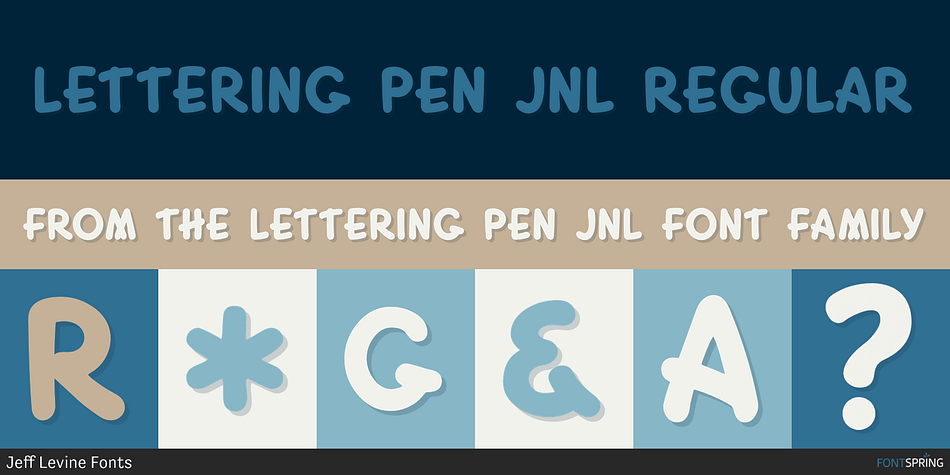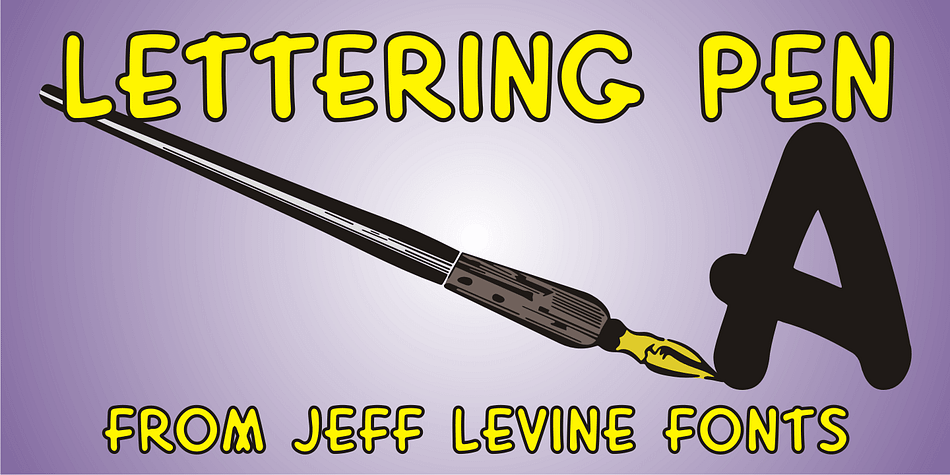
LETTERING PEN JNL REGULAR
Lettering Pen JNL is a hand display font published by Jeff Levine Fonts.
The rounded hand lettering for the circa-1920s sheet music title “I’m On My Way Back Home” inspired the font design for Lettering Pen JNL.